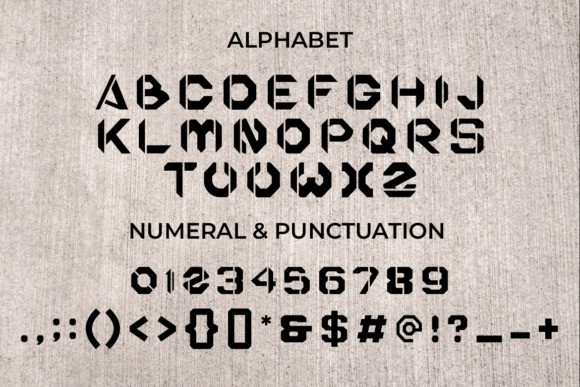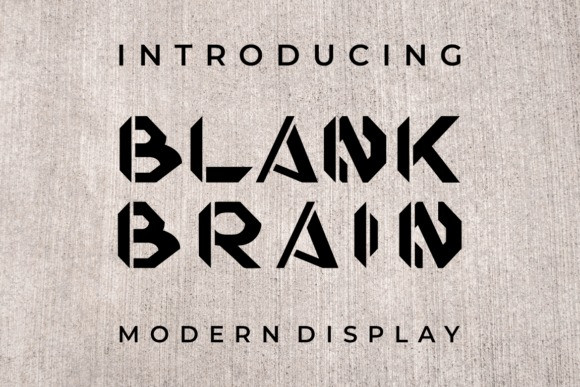
Blank Brain Font
BLANK BRAIN Font – Modern Font is a bold and authentic display font. The font is suitable for any branding project like logo, t-shirt printing, esport, and many more. outstanding in a wide range of contexts.